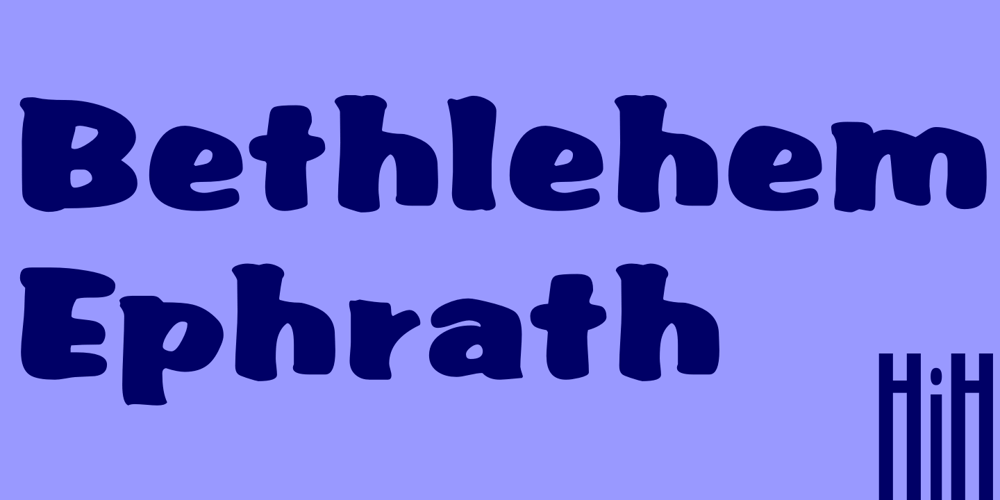
Bethlehem Ephrath
Bethlehem Ephrath font
Bethlehem Ephrath Font Family was designed by published by HiH. Bethlehem Ephrath contains 1 styles and family package options. One menorah that I have long found particularly appealing was named The Tree of Life Menorah, a replica of which I gave as a gift one holiday to a kindly old couple who were neighbors and became friends. It had a simple, organic elegance that I see in the best of Art Nouveau sculpture. To me personally, Judeism is a celebration of life, like the triumph of the flower that blossoms in the crack of the city sidewalk. Just as Hanukkah celebrates the rededication of the temple and the miracle of the oil, it celebrates the victorious quest for freedom of the Hebrew people led by Judah Maccabee. Hanukkah represents determination and courage and faith — and it represents the presence of God in the lives of His people. It is interesting to note that the founding of the Albanian nation in the early twentieth century grew out of the resistance of the Albanian people to the imposition of Greek language and culture in the aftermath of the dissolution of the Ottoman Empire. The typeface, HADASSAH, designed by Henri Friedlander (1904-1996), is my favorite Hebrew typeface. Thirty years in the crafting, I believe it is unsurpassed for its shear beauty, combining a subtle modulation of stroke with a simplicity and clarity of form. No doubt, that is why it has become so popular. For me, the Sîyn/Shîyn characters are especially satisfying. For a Hanukkah message in Hebrew, I would choose HADASSAH LIGHT for a headline and print it as large as I could. If, however, you are looking for a friendly, warm face for a seasonal message in a roman-letter based language, may I suggest BETHLEHEM EPHRATH. It will be as comfortable as a bulky, hand-knit sweater on a frosty afternoon and reflects the solid, encompassing, family orientation of this holiday. It was on the way to Ephrath that Jacob’s beloved wife Rachel gave birth to Benjamin and then died from her labor. It was to Ephrath that Naomi and Ruth returned and in Ephrath that we have the wonderful, heart-warming story of the marriage between Ruth and her Redeemer-Kinsman, Boaz. And it was to Ephrath that prophet, Samuel, went to find a new king and there in Ephrath that the prophet annointed a small shepherd boy named David. The Proverbs tell us to seek wisdom. Never underestimate the impact you have on others. Words of kindness can change people’s lives. The Talmud says that the highest form of wisdom is kindness. Be wise this holiday season. The font BETHLEHEM EPHRATH is based on the typeface Accent with the permission of URW++ of Hamburg, Germany. Like most display fonts, it is most effective at 18 points and larger. Like most script fonts, it is most effective when set with both upper and lower case. Although this font is readable in all caps (many scripts are not), that does not make it a good idea. Do so only with caution.